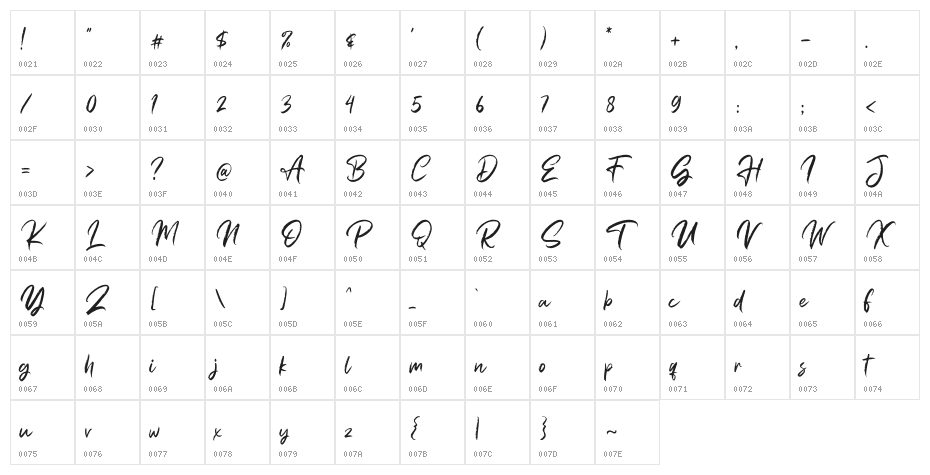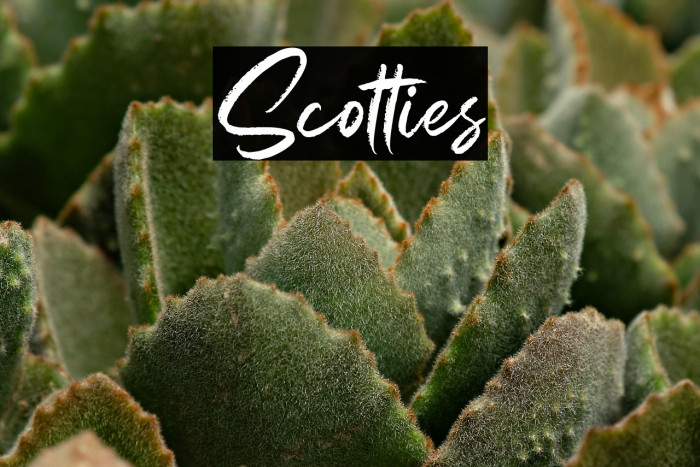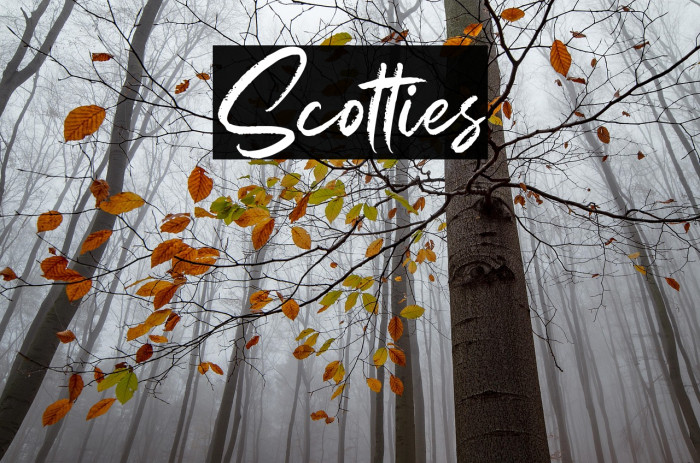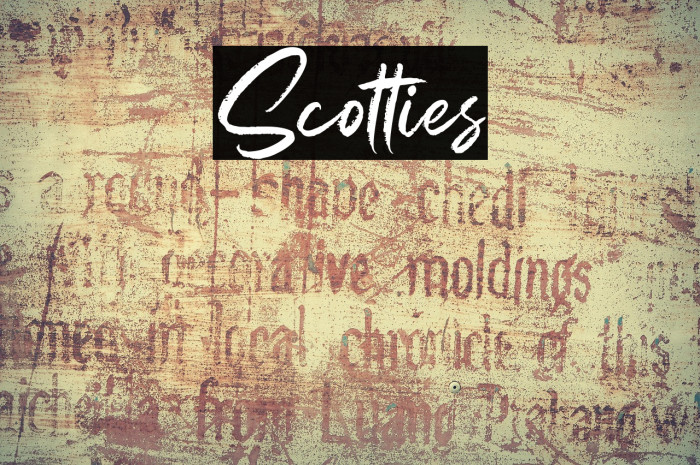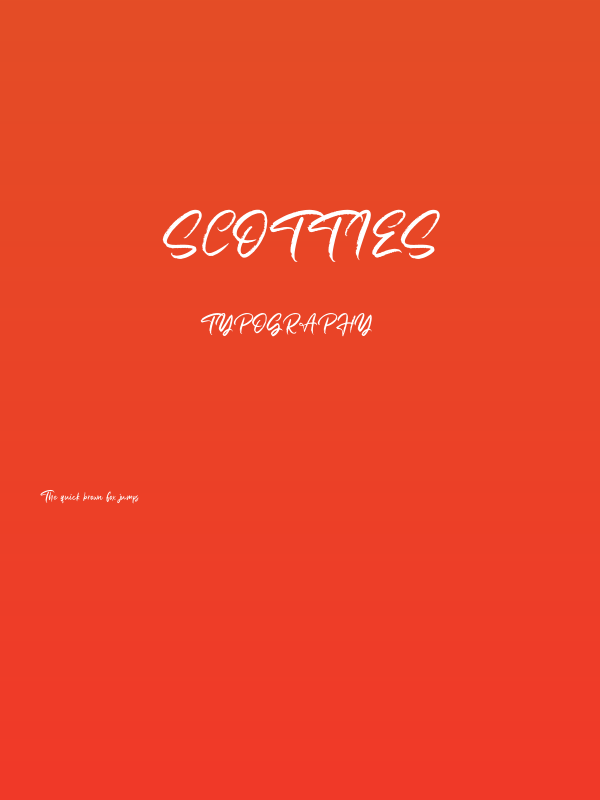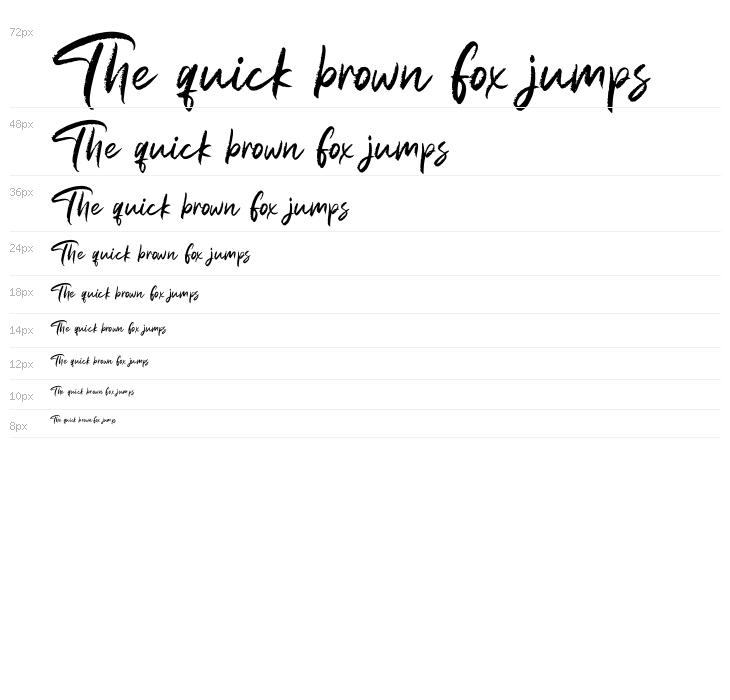
Scotties Font
Scotties Description
This font features a dynamic and expressive handwritten style, characterized by its fluid strokes and brush-like texture. The uppercase letters are bold and slightly slanted, giving a sense of movement and energy. The lowercase letters maintain a consistent flow, with some characters extending below the baseline, adding to its casual and artistic appeal. Numbers and special characters are crafted with the same brush-like quality, ensuring uniformity across all elements. The overall impression is one of creativity and spontaneity, making it suitable for projects that require a personal touch.
Use CaseLogos, Headlines, Artistic projects
Proposed ProjectsIdeal for branding, invitations, greeting cards, and artistic projects requiring a personal touch.